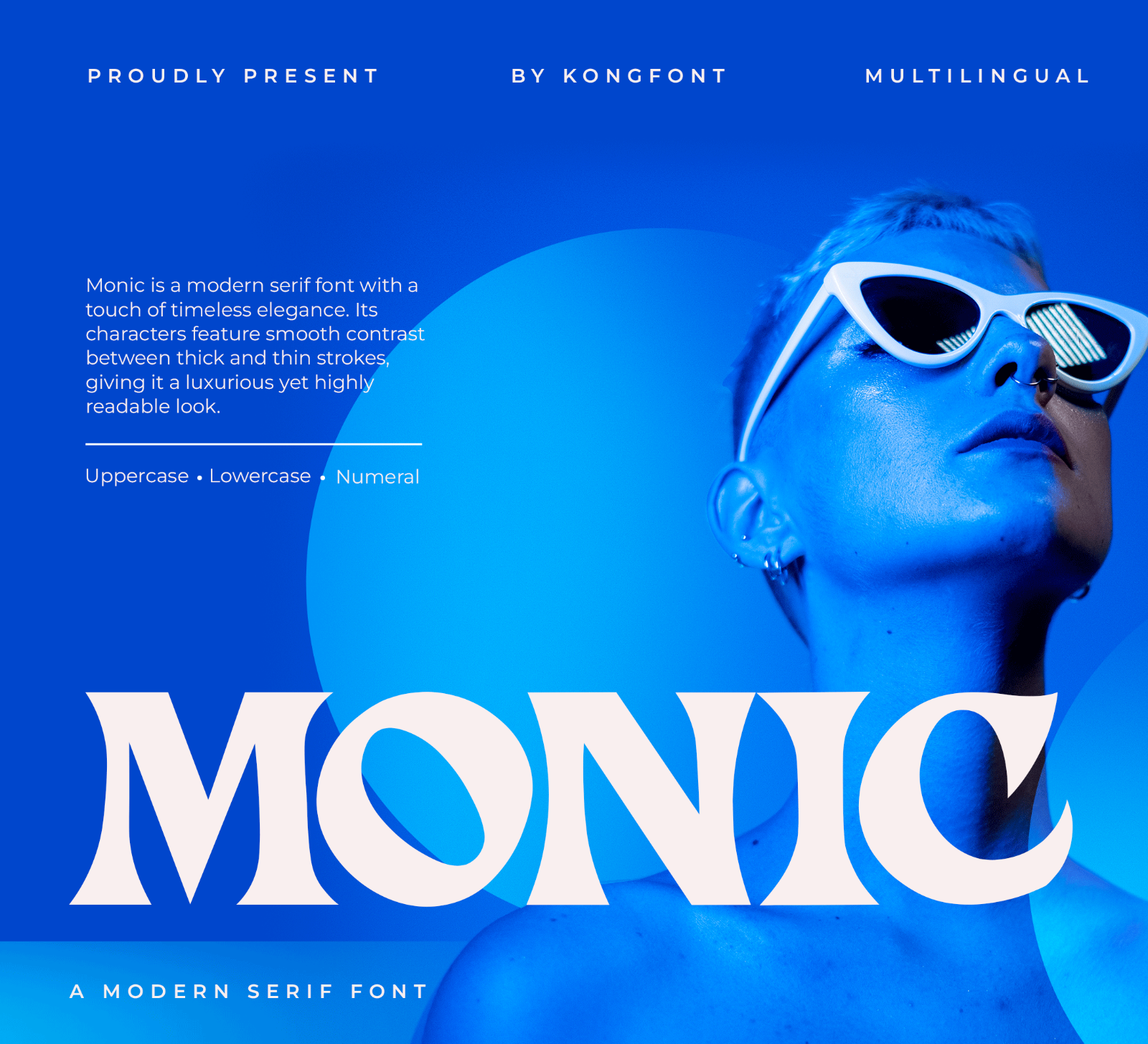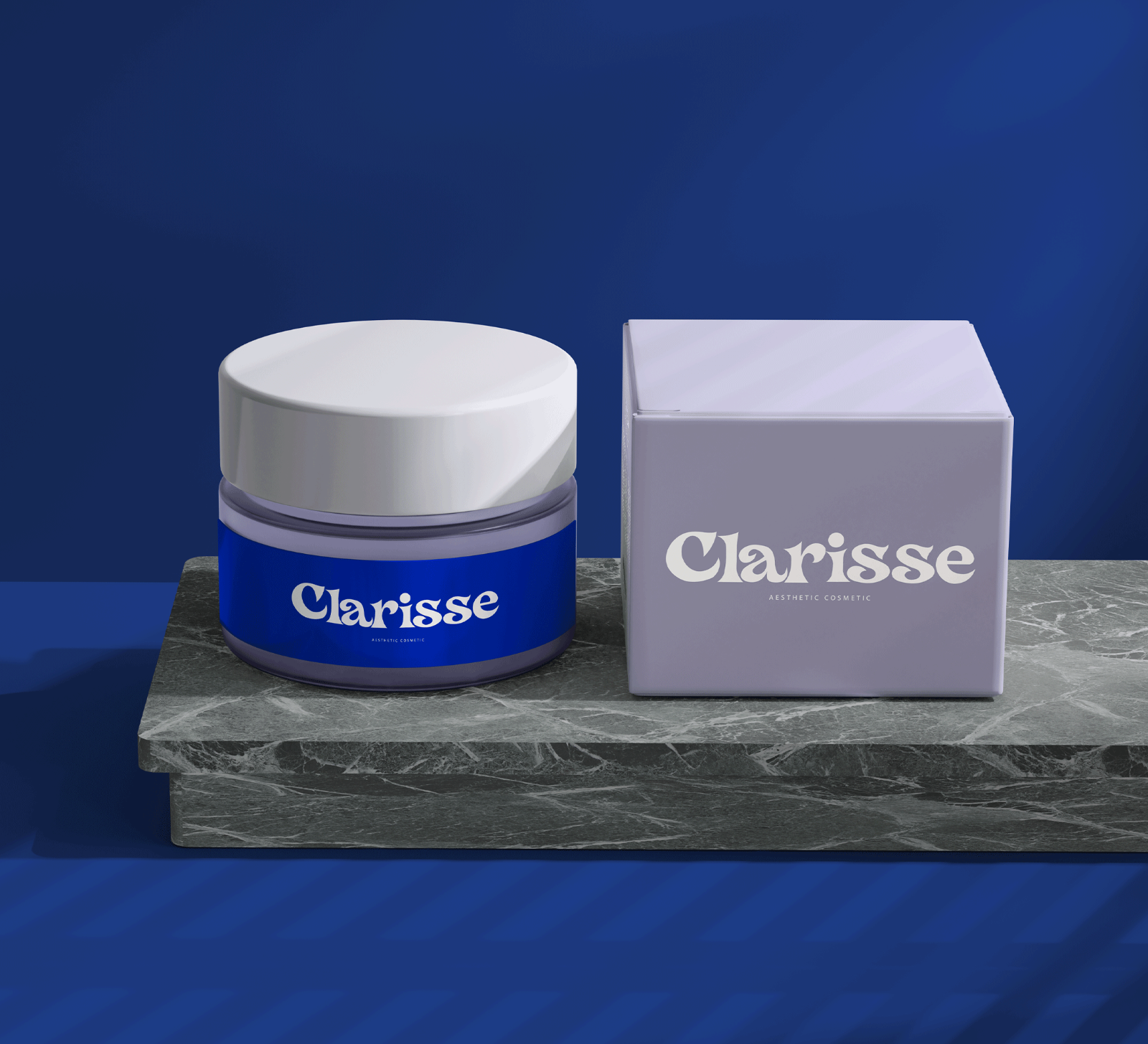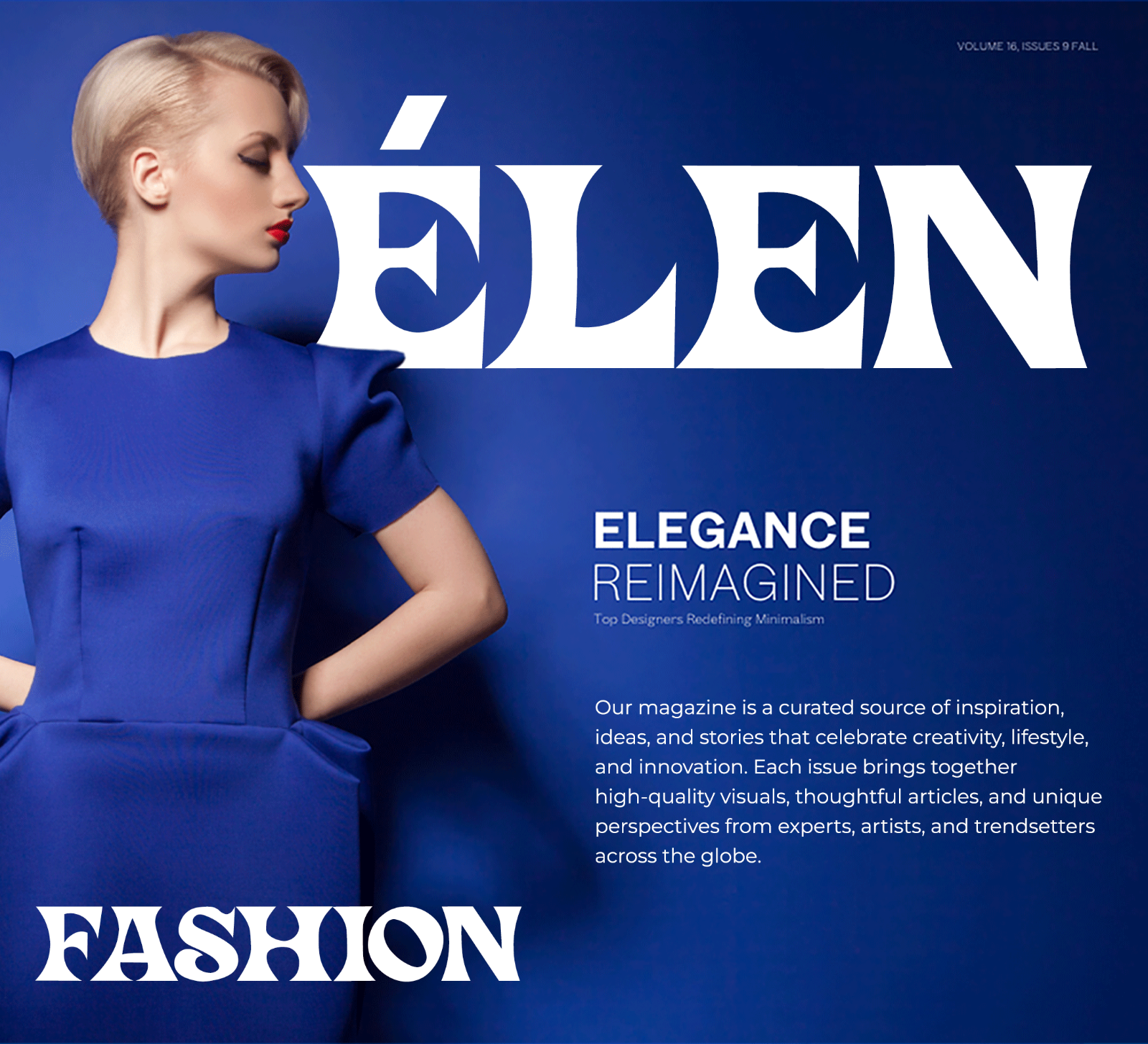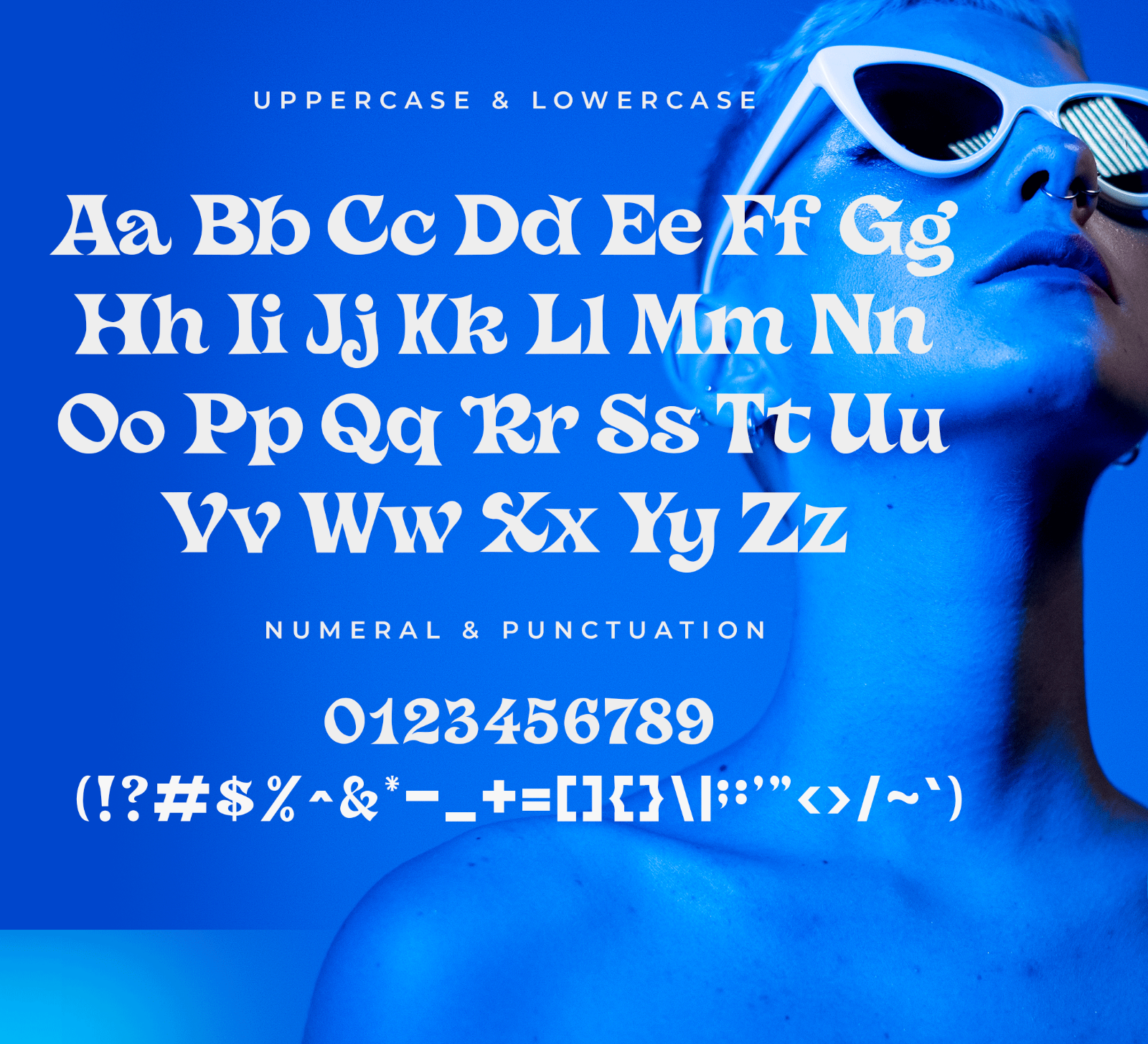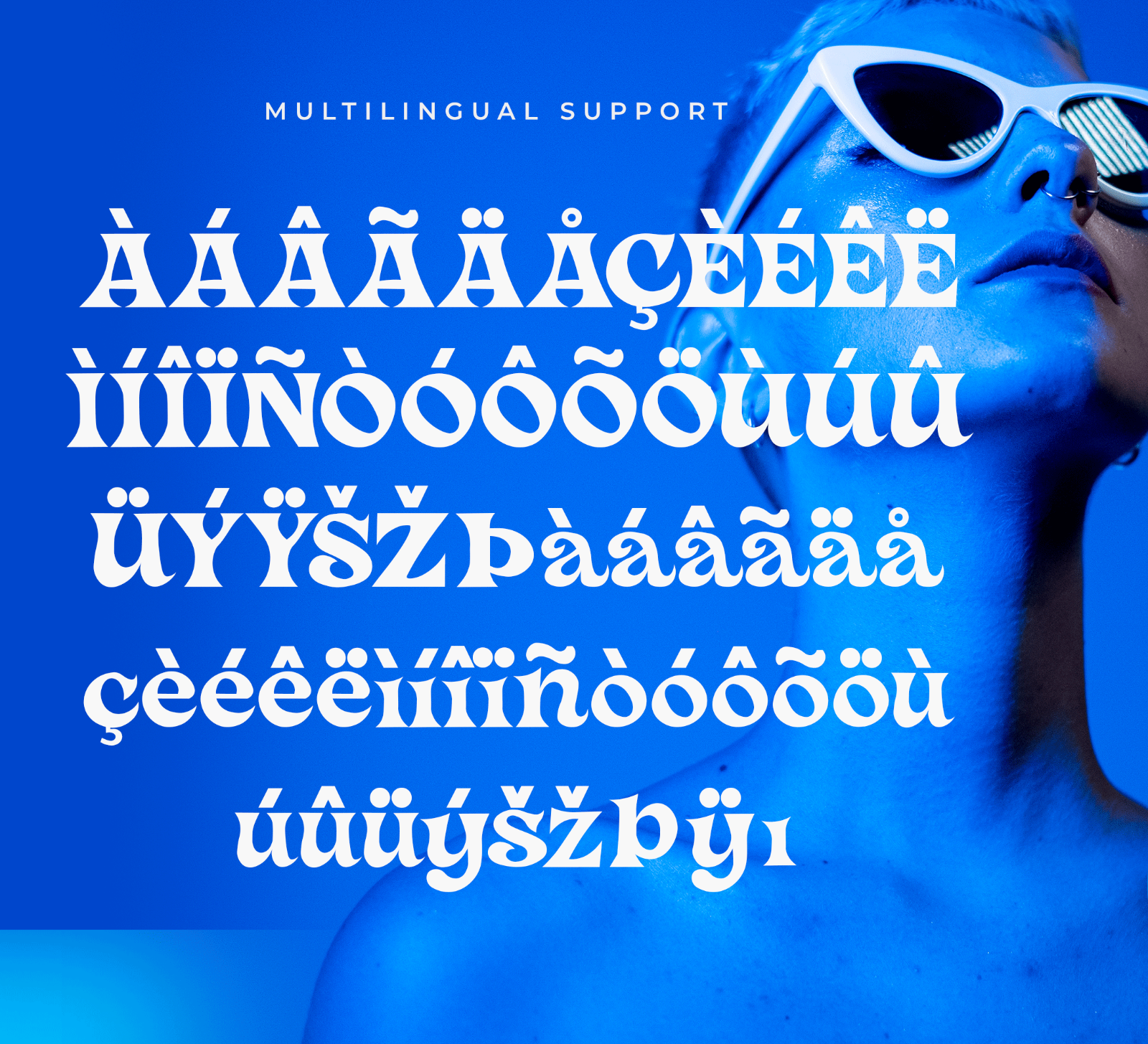
Monic is a modern serif font with bold letterforms, elegant curves, and a unique classy style. Its refined and contemporary look makes it perfect for branding, headlines, and stylish display designs.
• Branding
• Logos
• Business cards
• Blog headers
• Quotes
• Editorial titles
• Packaging
• Creative typography